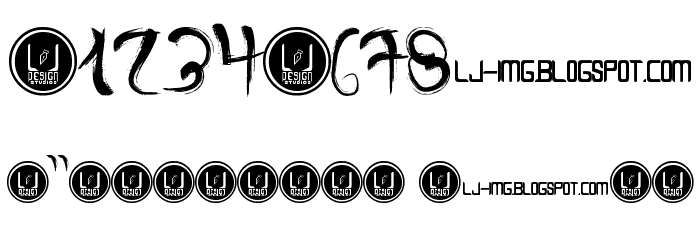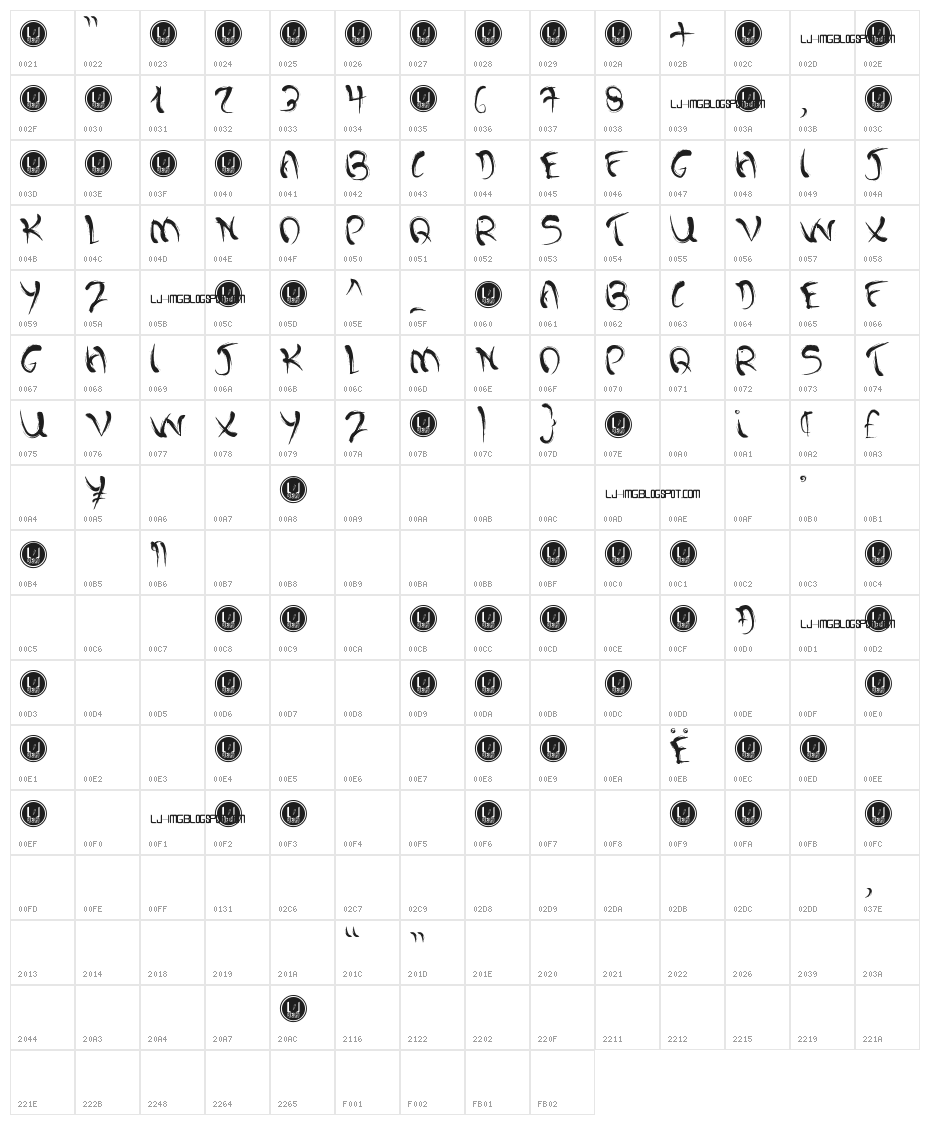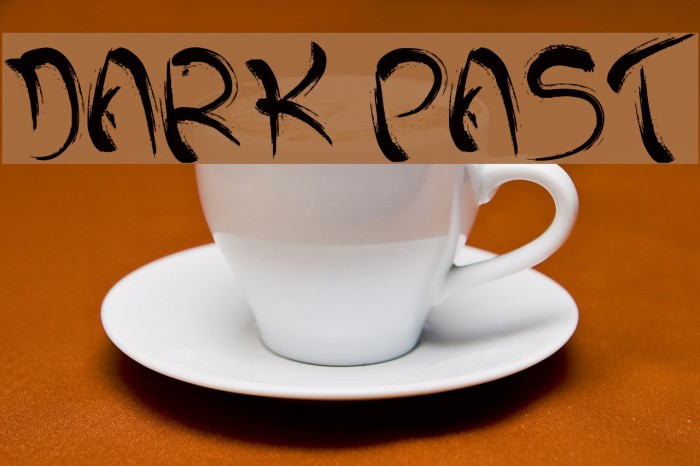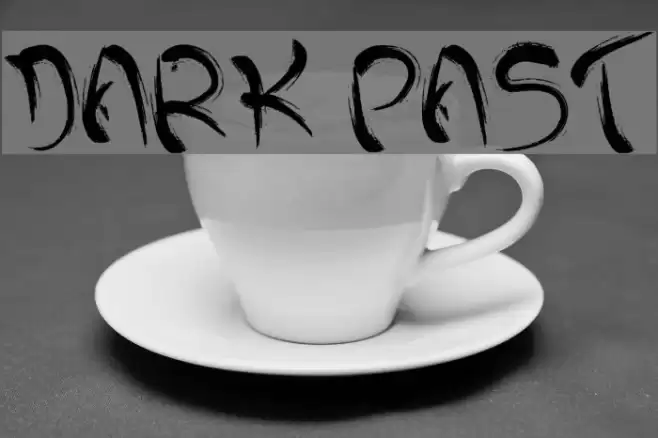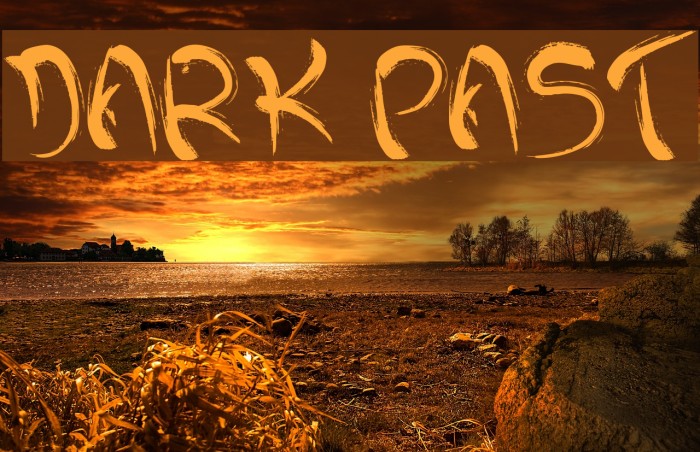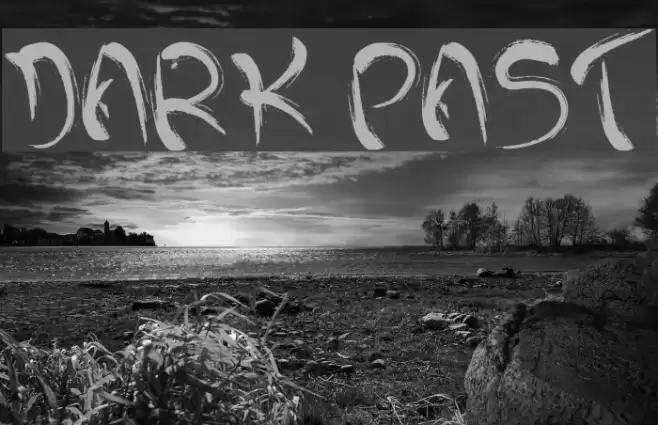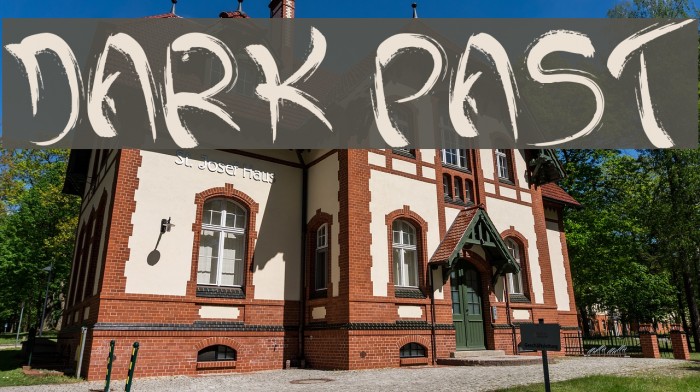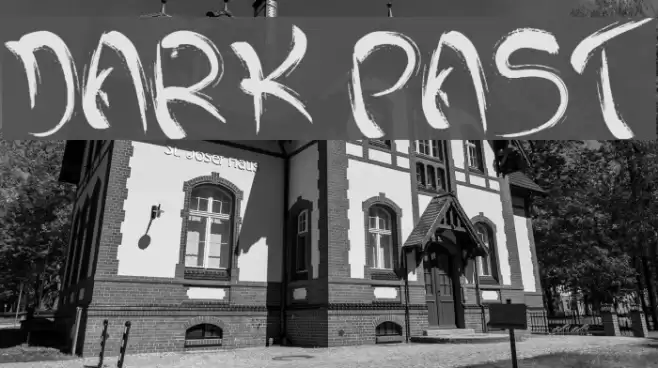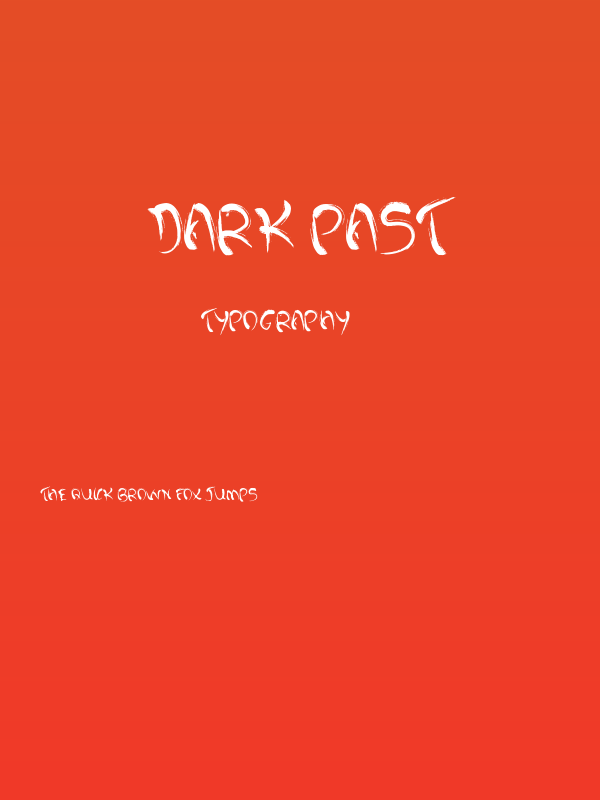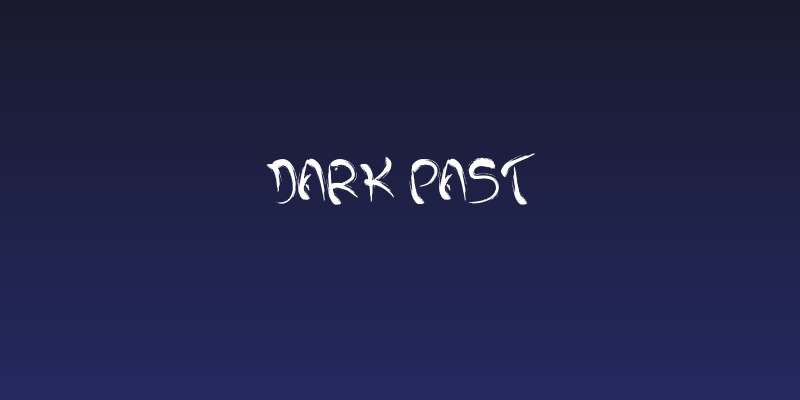
Dark past Font
Dark past Description
This font features a bold, brush-like style with a dynamic and energetic appearance. The strokes are uneven and have a hand-painted feel, giving it a raw and expressive character. The uppercase and lowercase letters maintain a consistent flow, with some letters having exaggerated curves and swashes that add to its dramatic flair. The numbers and special characters follow the same artistic style, ensuring a cohesive look across all glyphs. This font is ideal for projects that require a strong visual impact and a sense of movement.
| Proposed Projects | Ideal for posters, album covers, branding, and any design needing a bold, artistic touch. |